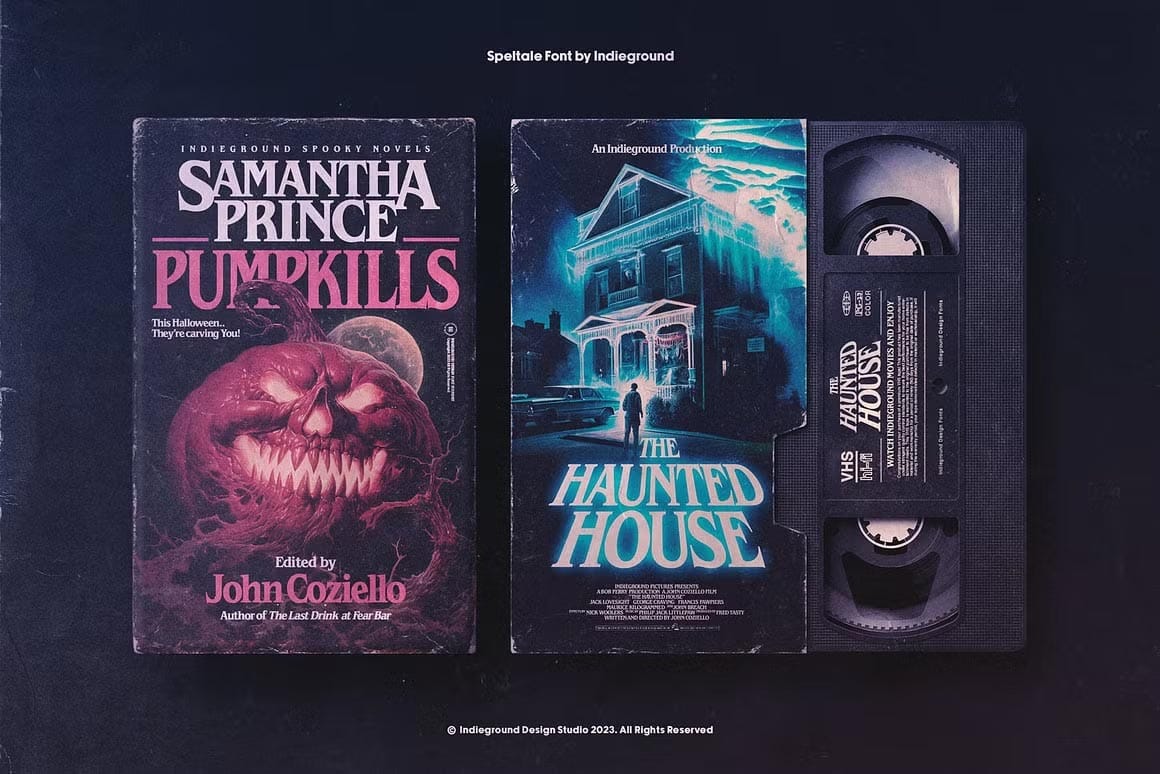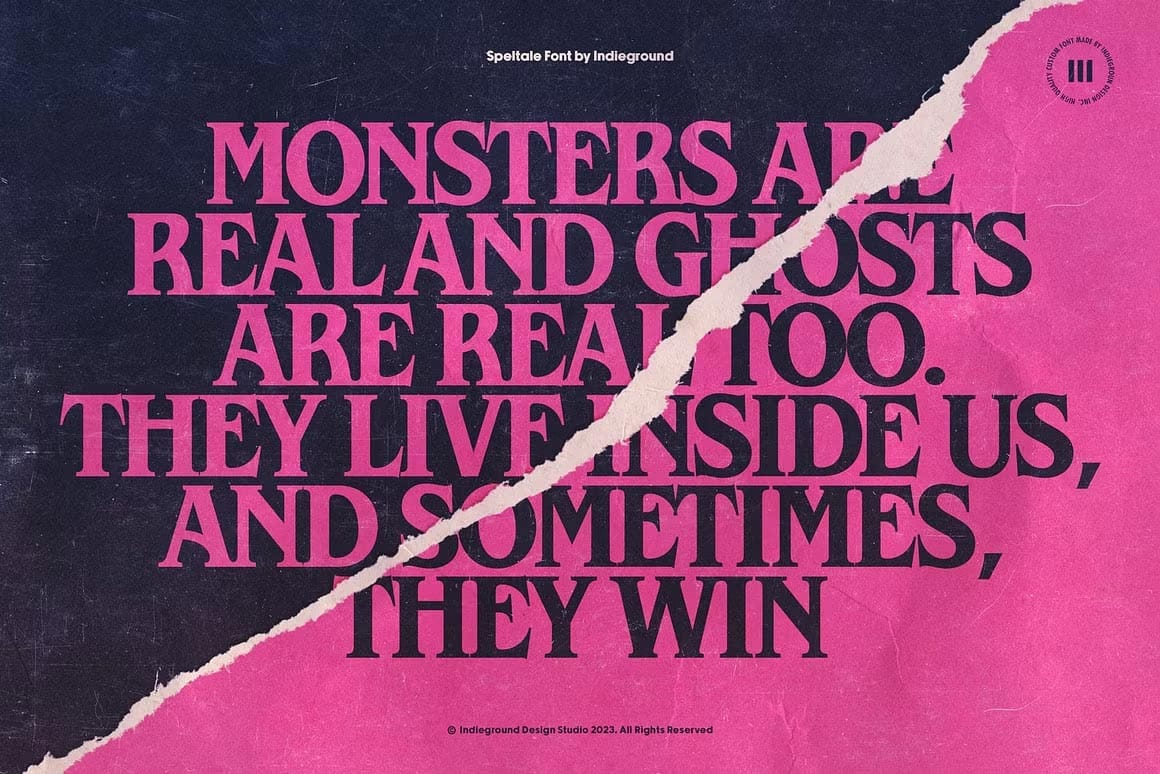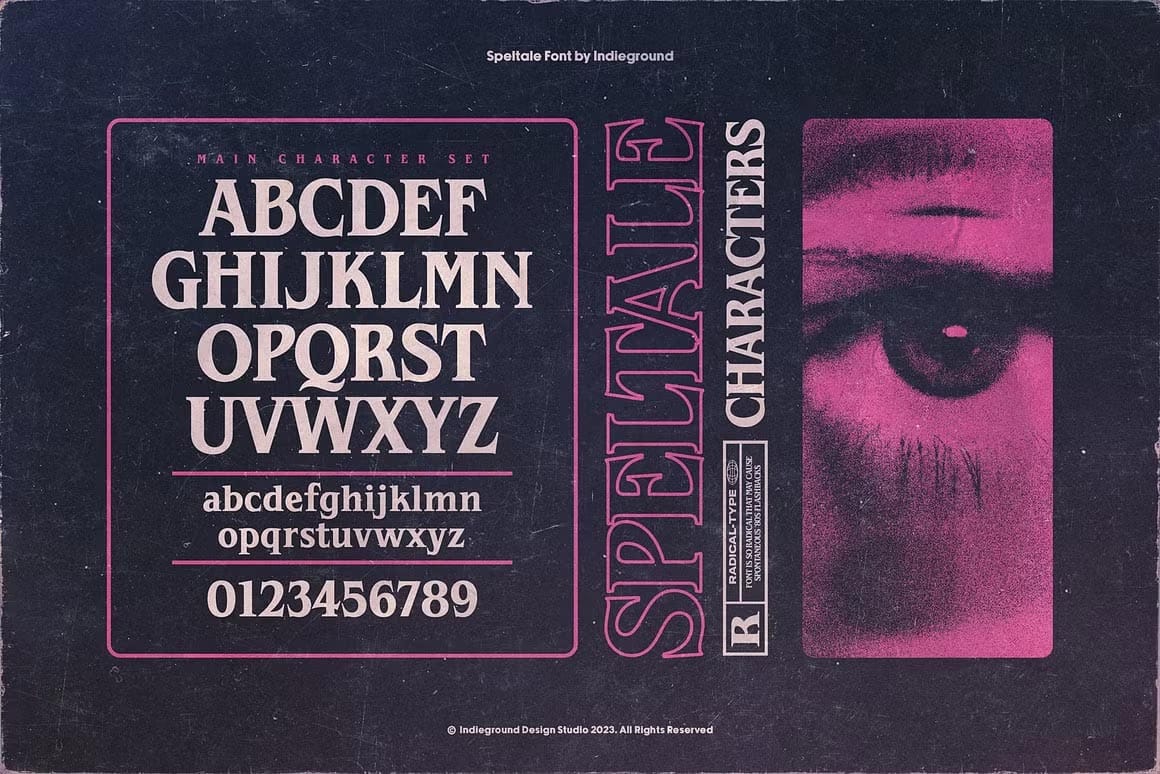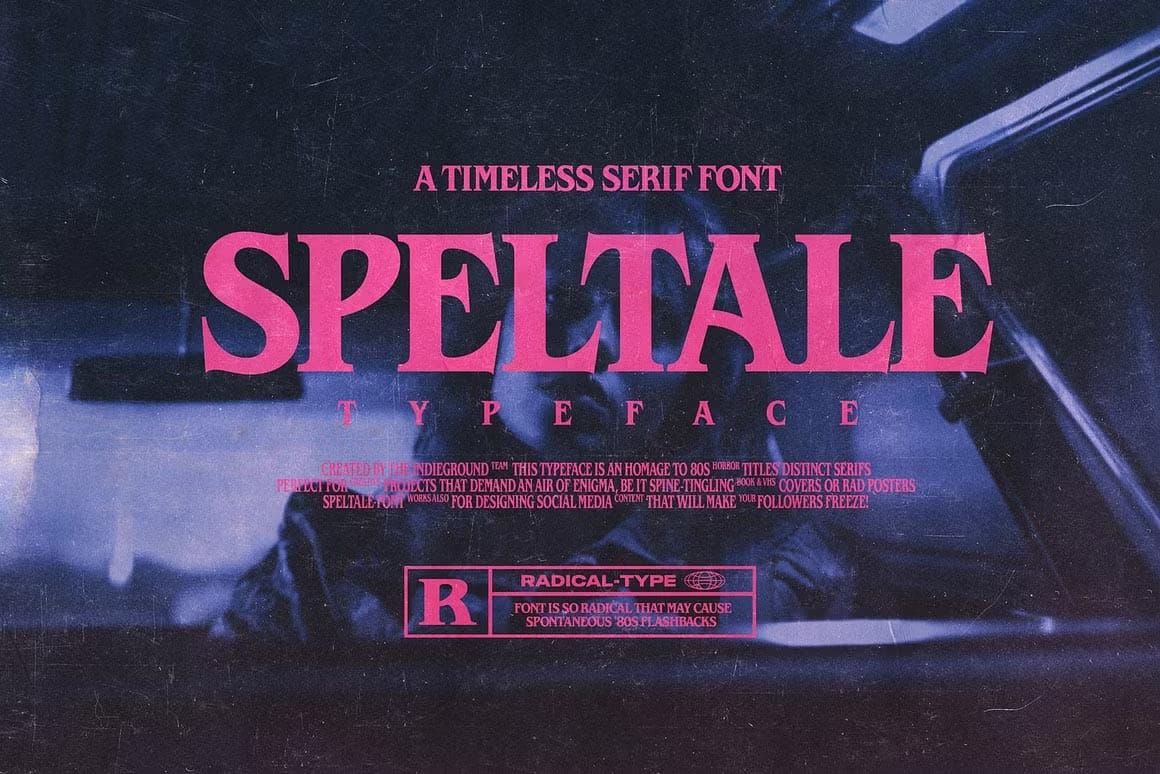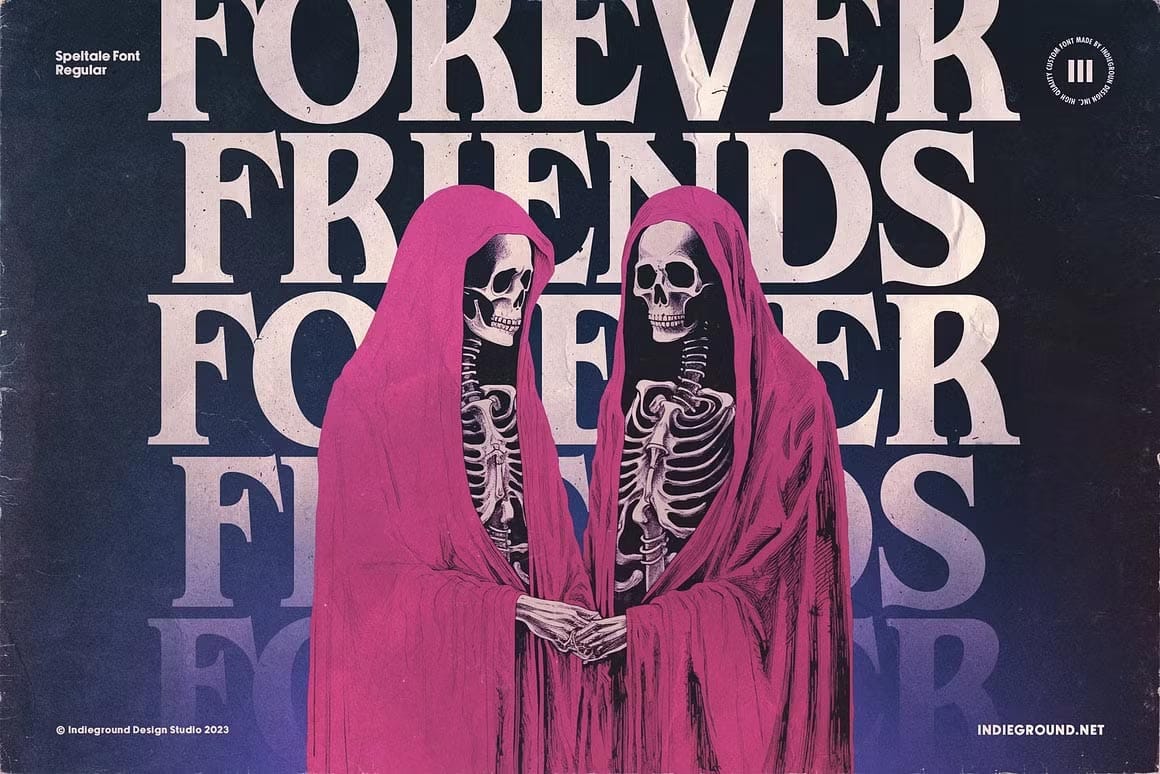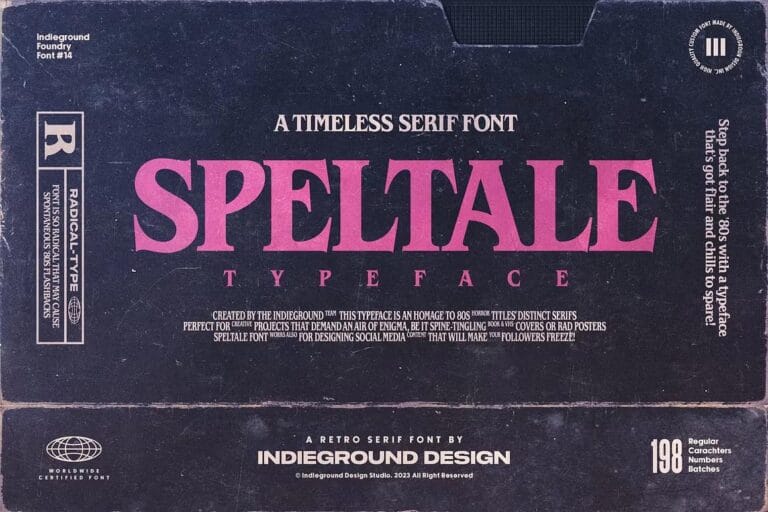
Speltale Font by Indieground This chilling, mysterious and vintage serif font blends the charm of retro and gothic atmospheres.
Its roots are in the legendary ITC Benguiat, this version is an homage to its distinct serifs and shivering vintage sensations. Designed for creative projects that demand an air of enigma, be it spine-tingling book covers or chilling posters, Speltale works wonders also for social media content that will make your followers freeze. Our new take on the classic serif font includes the complete character set and every enigmatic glyph, ligature and special character you saw and fell in love with in the preview!